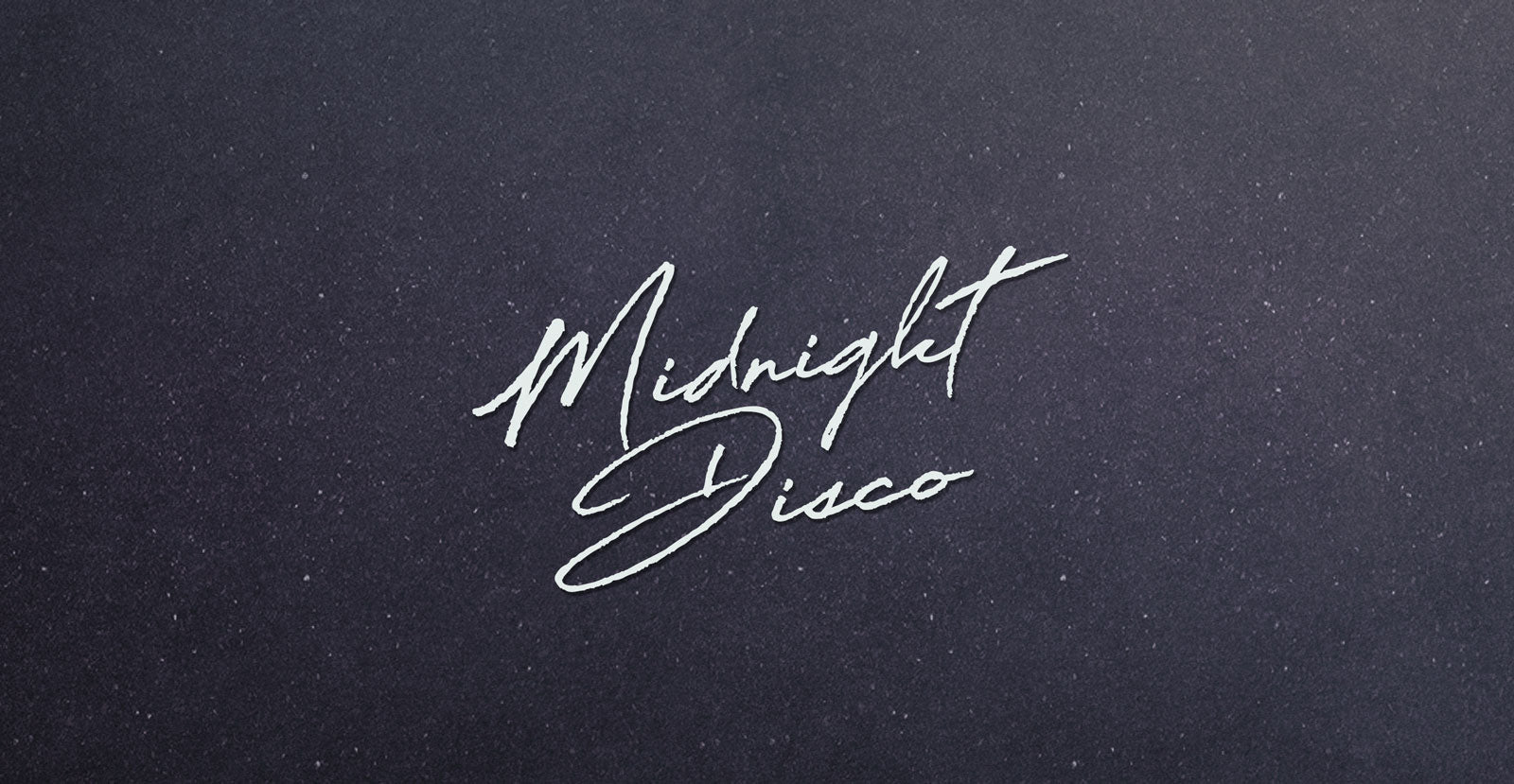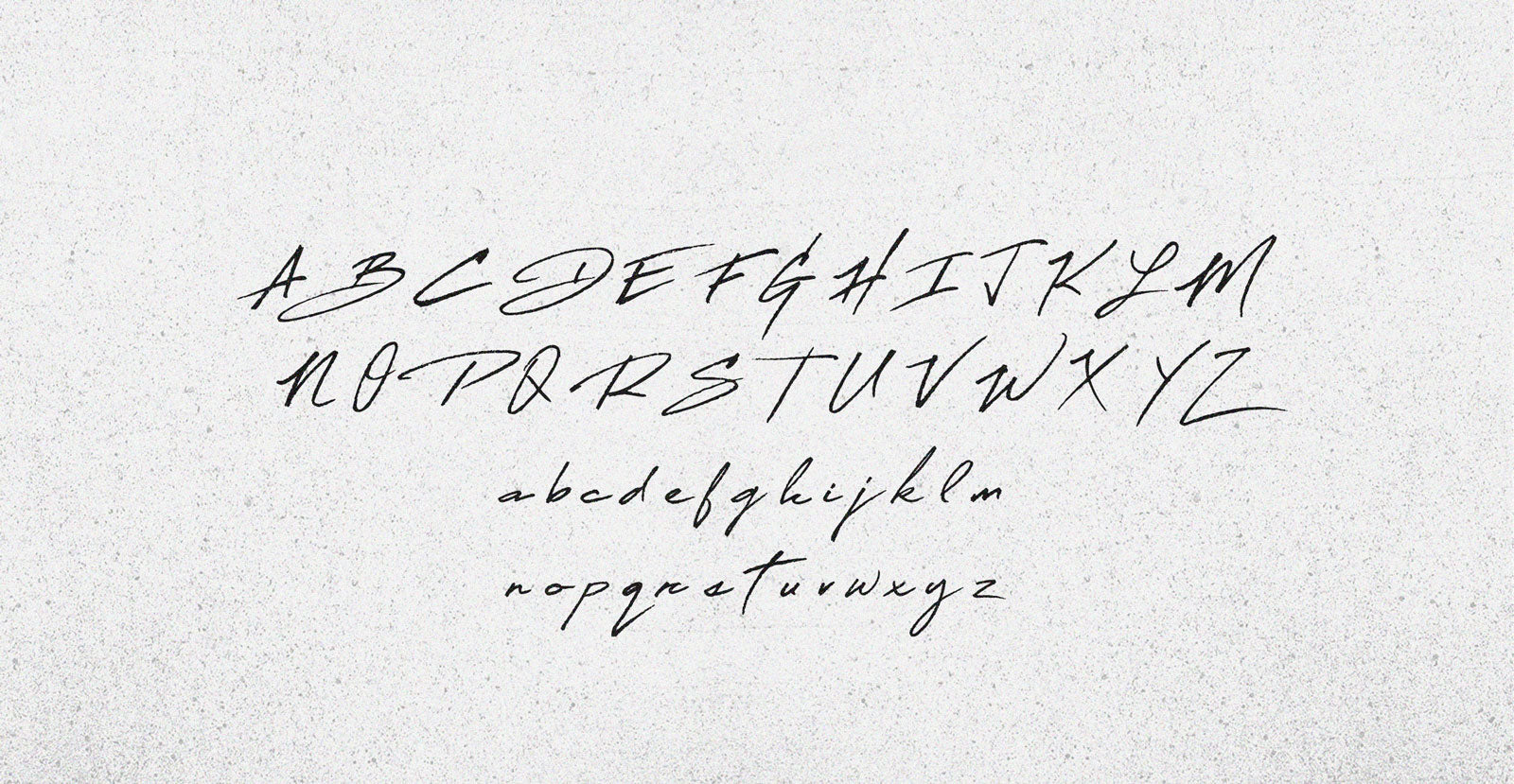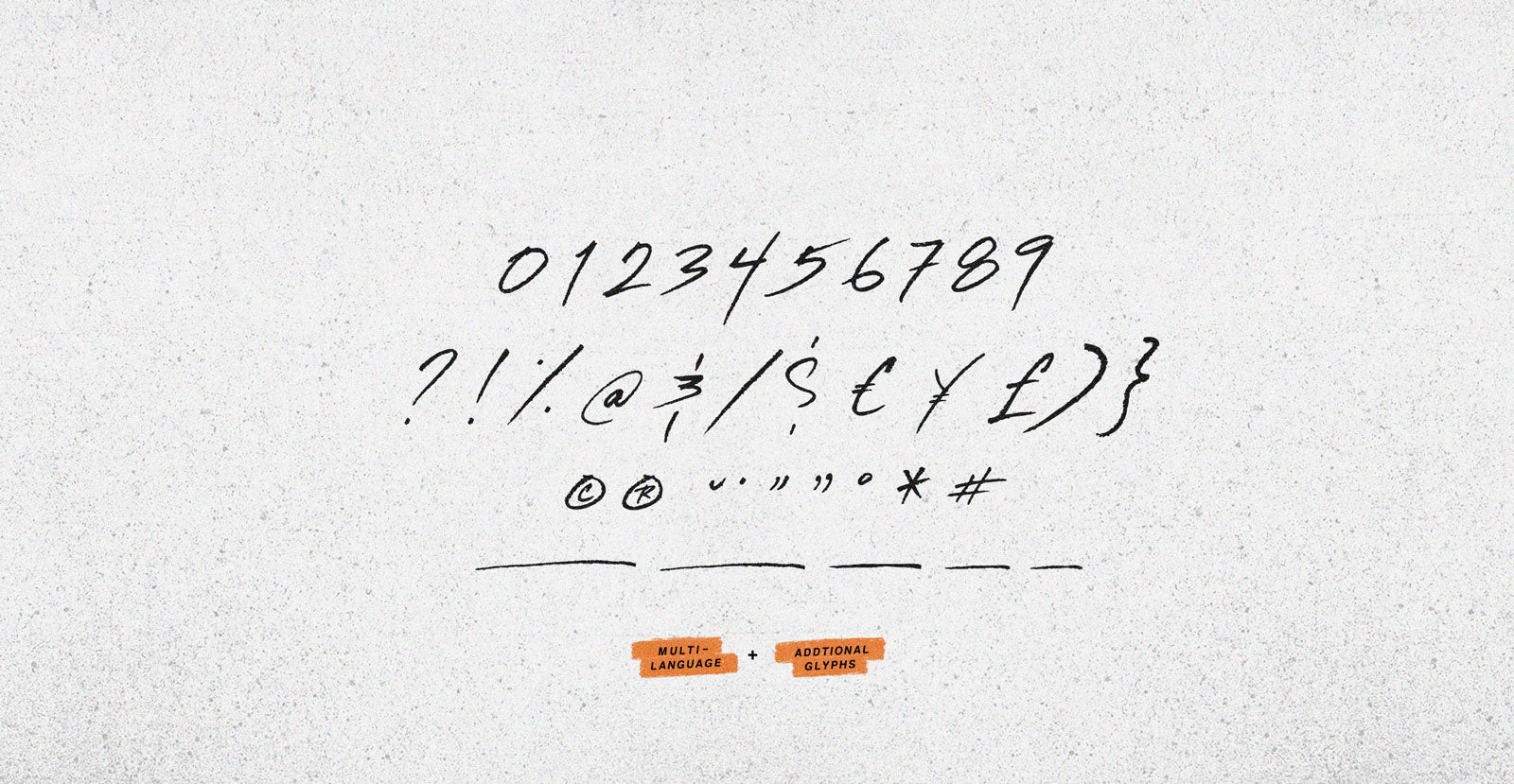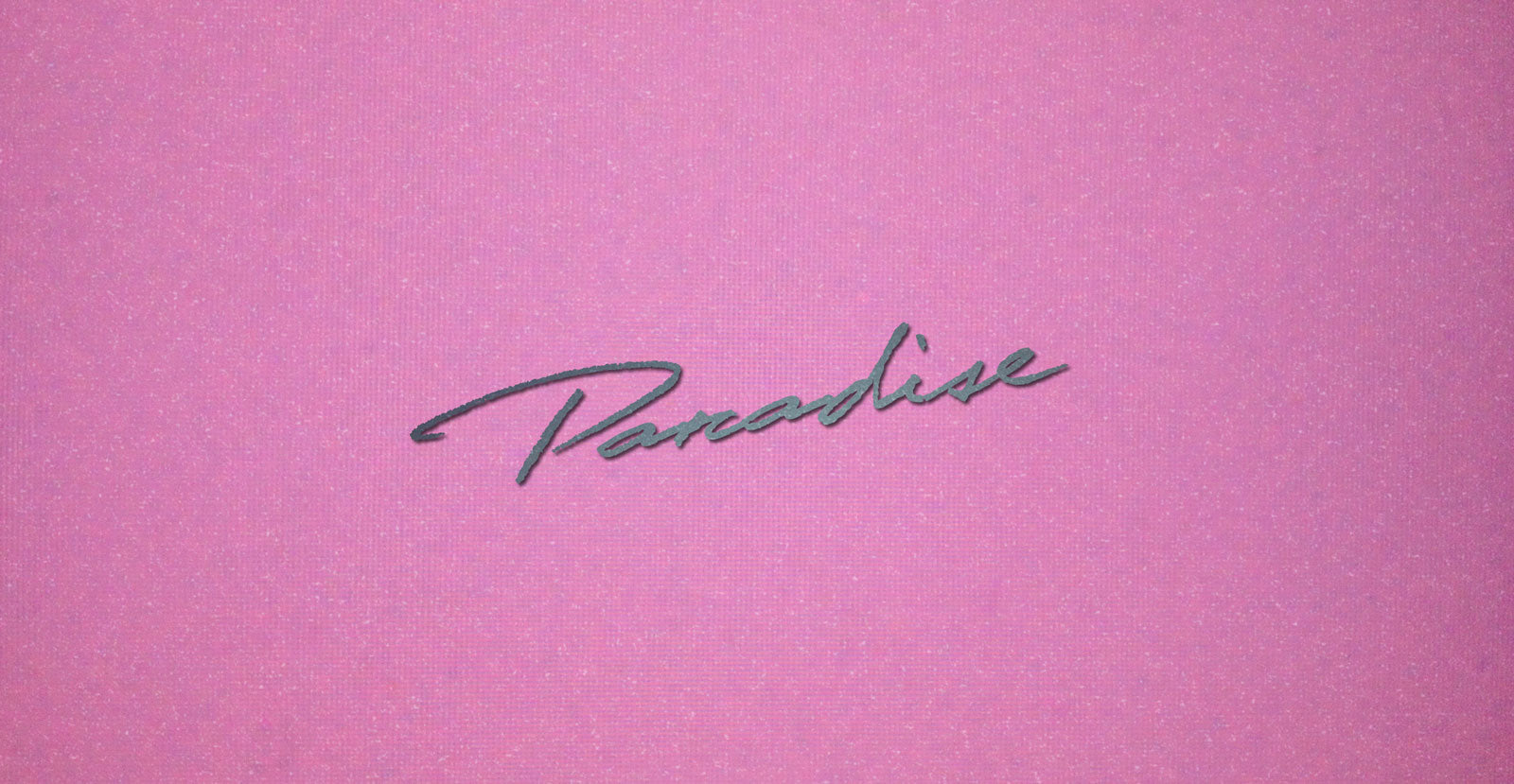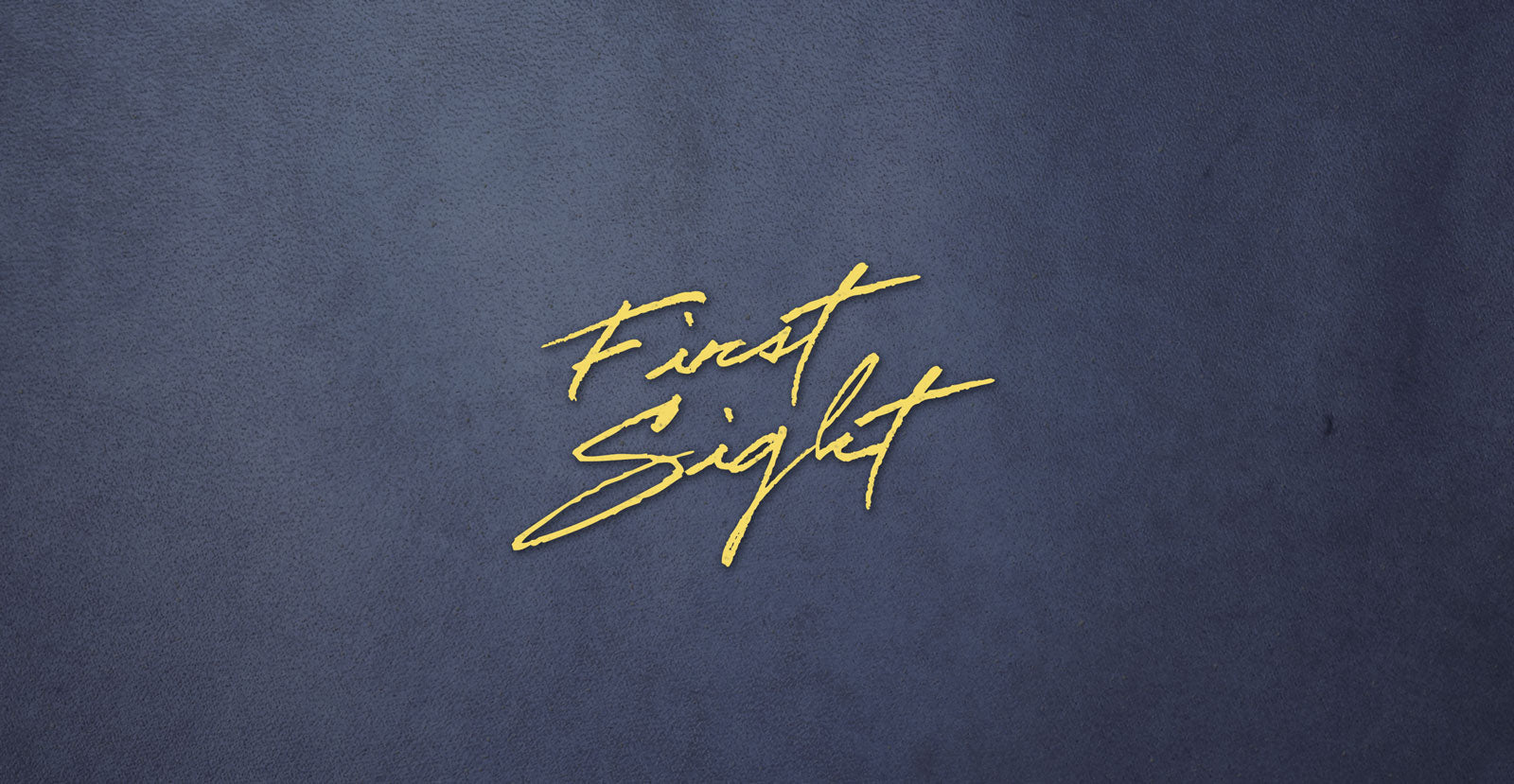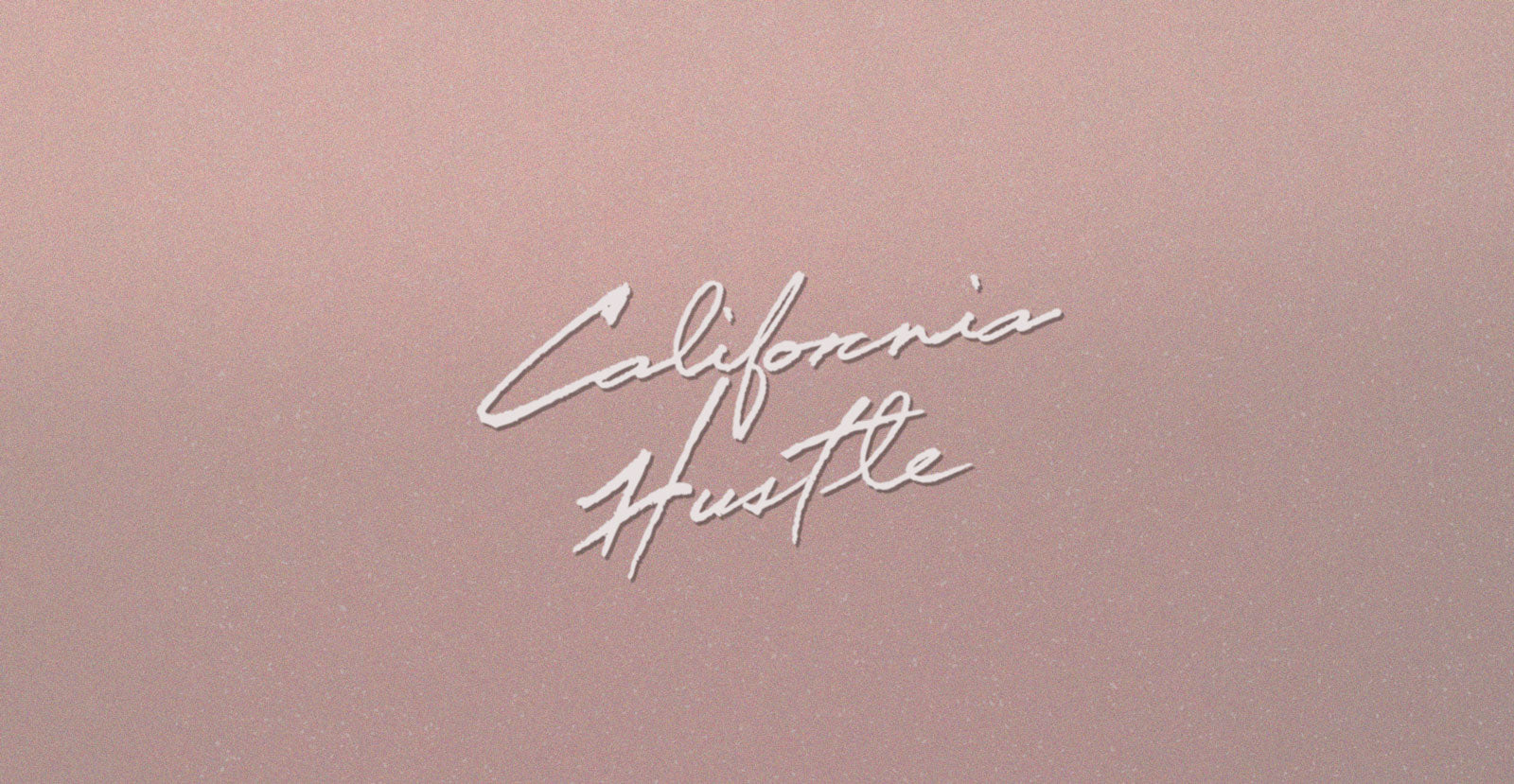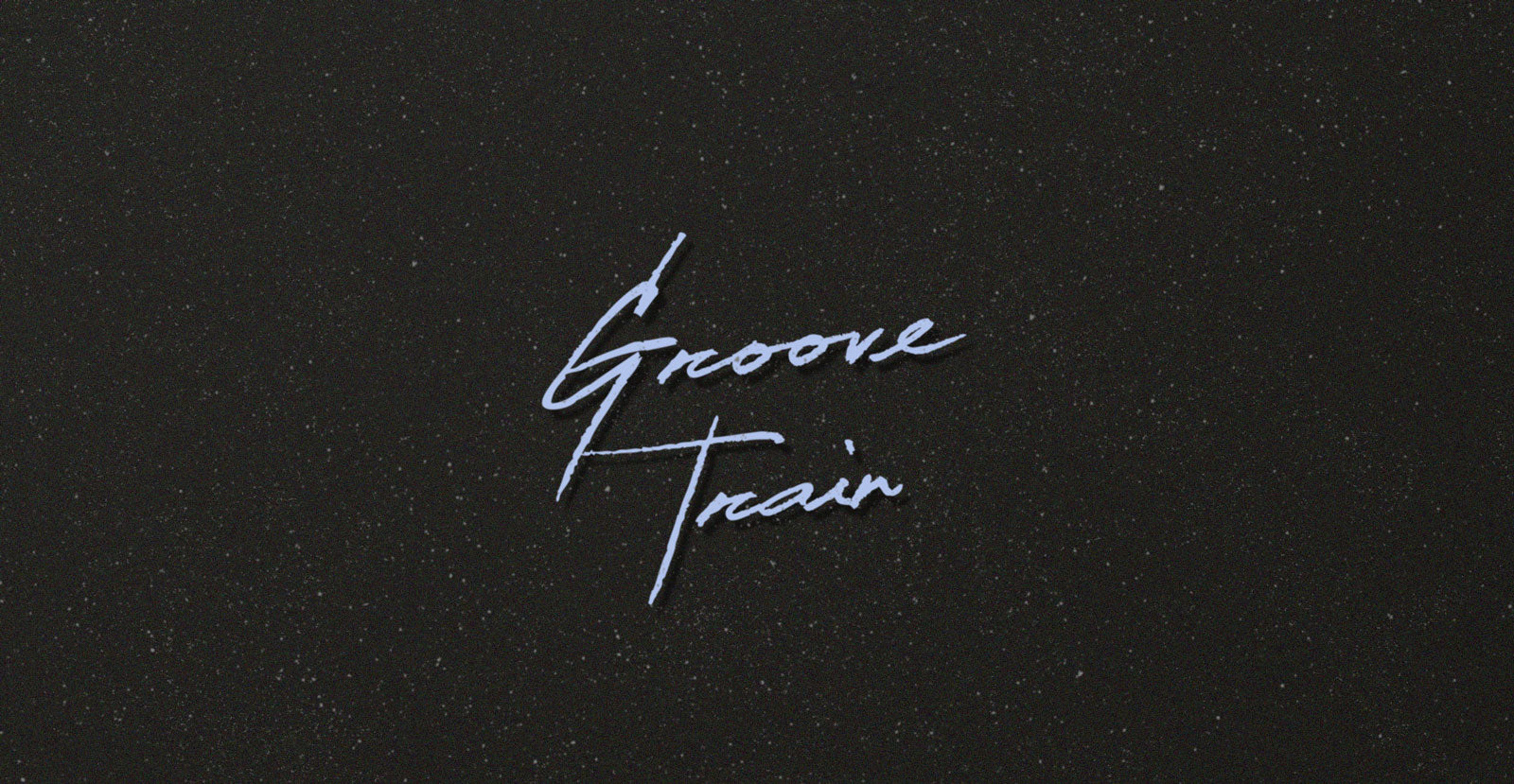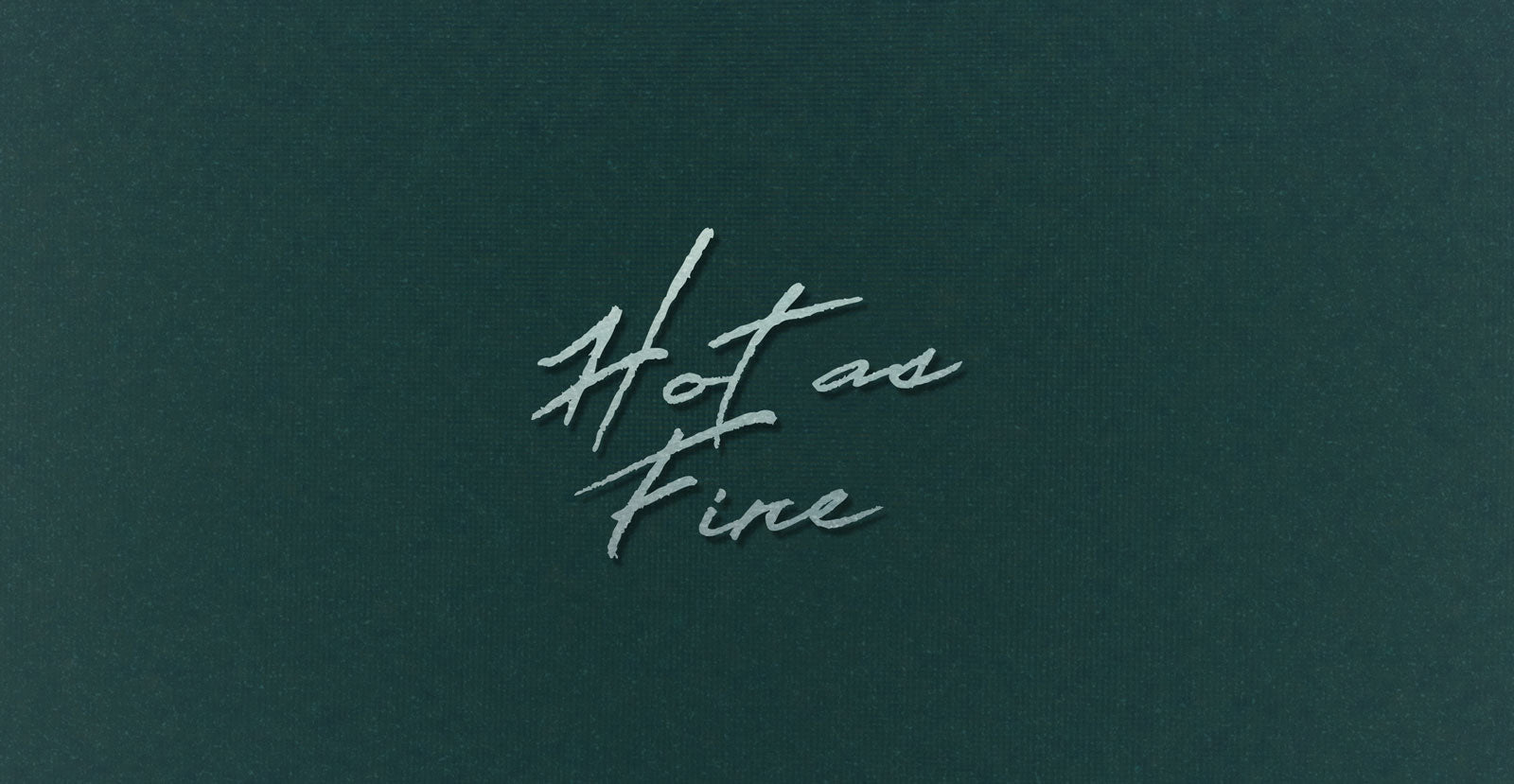
Midnight Disco
And it is the Midnight Disco that sure 'nuf makes you want to move real smooth and shake your body down to the ground. And you can bet your last money, it's all gonna be a stone gas, honey!